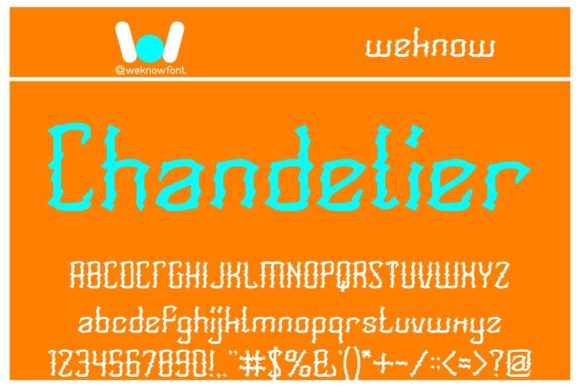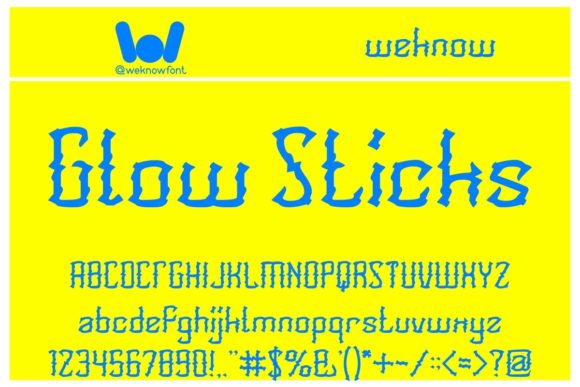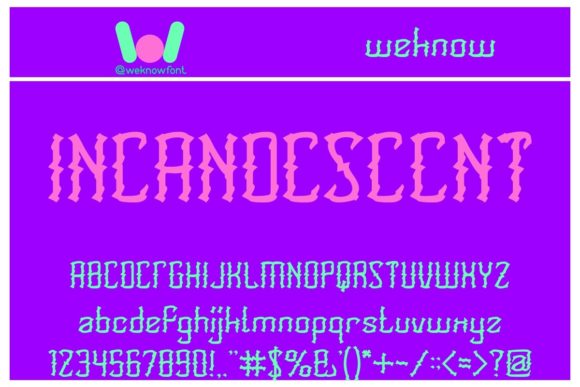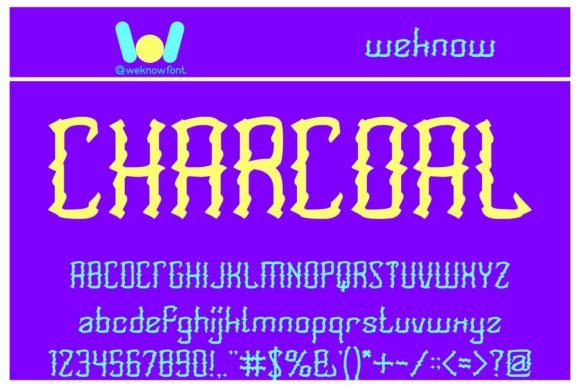
Candle Light Font: The Perfect Choice for Your Creative Design Projects
Are you a designer or crafter looking for a unique and elegant font to elevate your creative design projects? Look no further than Candle Light Font, a fancy display font that is perfect for a variety of applications. In this article, we’ll explore the features and benefits of Candle Light Font, and why it’s the ideal choice for your logo, branding, and design needs.
What is Candle Light Font?
Candle Light Font is a beautifully crafted display font that is designed to add a touch of elegance and sophistication to your design projects. With its delicate and refined lines, Candle Light Font is perfect for creating stunning logos, logotypes, headlines, and other design elements that require a high level of visual appeal.
Features of Candle Light Font
Candle Light Font comes with a range of features that make it an ideal choice for designers and crafters. Some of its key features include:
- Fancy Display Font: Candle Light Font is a fancy display font that is designed to make a statement. Its unique and elegant design makes it perfect for creating eye-catching logos, headlines, and other design elements.
- Suitable for Various Applications: Candle Light Font is versatile and can be used for a variety of applications, including logos, logotypes, headlines, corporate identity, brand identity, apparel industry, posters, music, movies, games, magazines, books, comics, cartoons, YouTube, Instagram, websites, and more.
- Easy to Read: Despite its elegant design, Candle Light Font is easy to read and understand, making it perfect for use in body text and other design elements.
- Scalable: Candle Light Font is highly scalable, which means it can be used at various sizes without losing its elegance and sophistication.
Benefits of Using Candle Light Font
Using Candle Light Font in your design projects comes with a range of benefits, including:
- Unique and Elegant Design: Candle Light Font has a unique and elegant design that will set your design projects apart from the rest.
- Versatility: Candle Light Font is versatile and can be used for a variety of applications, making it a great addition to your font library.
- Time-Saving: With Candle Light Font, you can create stunning design elements in a fraction of the time it would take to create them from scratch.
How to Use Candle Light Font
Using Candle Light Font in your design projects is easy. Here are some tips to get you started:
- Logos and Branding: Use Candle Light Font to create stunning logos and branding elements that will set your business apart from the rest.
- Headlines and Titles: Use Candle Light Font to create eye-catching headlines and titles that will grab the attention of your audience.
- Posters and Flyers: Use Candle Light Font to create stunning posters and flyers that will promote your business or event.
- Web Design: Use Candle Light Font to create elegant and sophisticated web design elements, such as headings and titles.
Candle Light Font is a beautiful and elegant display font that is perfect for designers and crafters looking to elevate their creative design projects. With its unique and sophisticated design, Candle Light Font is versatile and can be used for a variety of applications. Whether you’re looking to create stunning logos, headlines, or other design elements, Candle Light Font is the perfect choice. So why wait? Download Candle Light Font today and take your design projects to the next level!